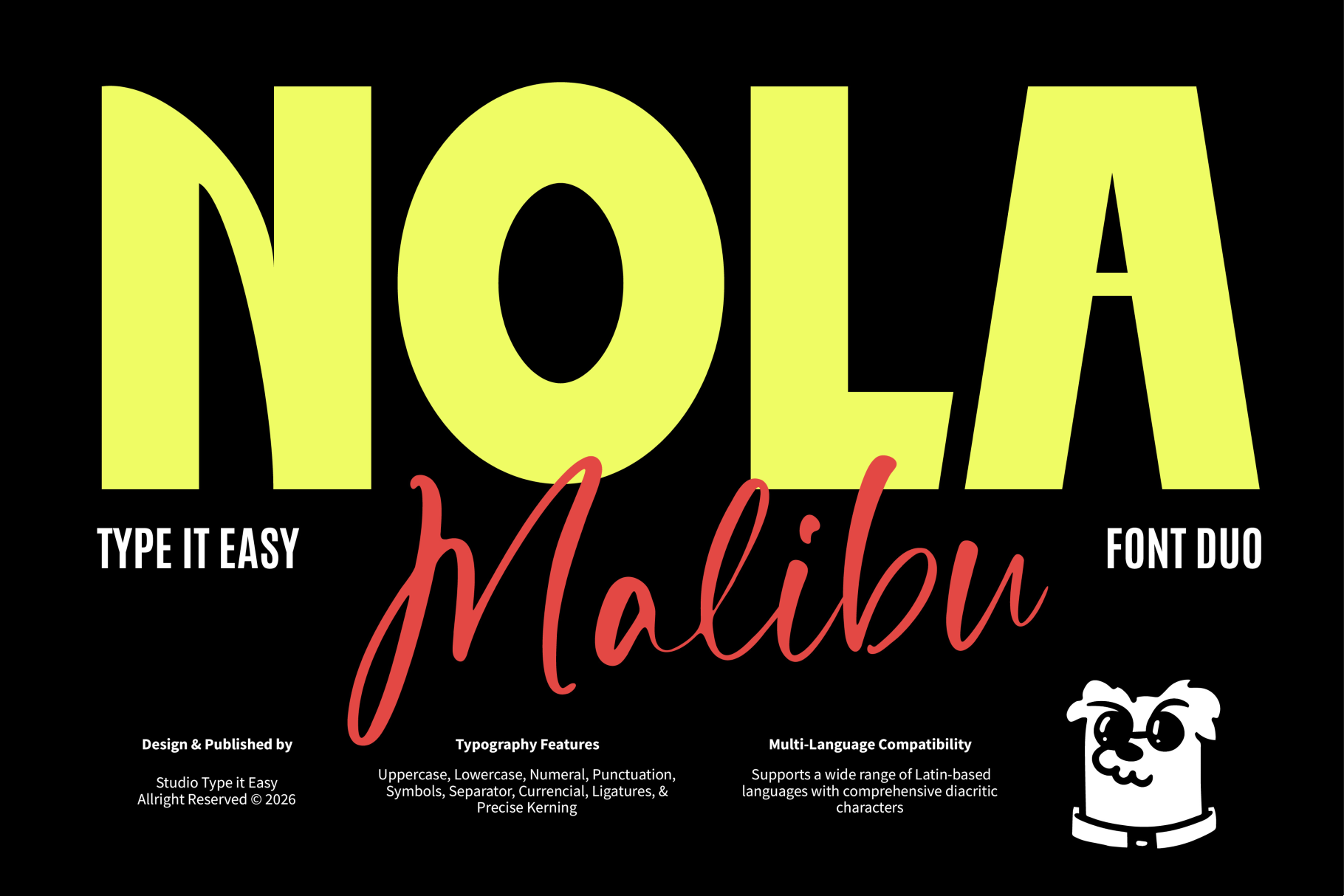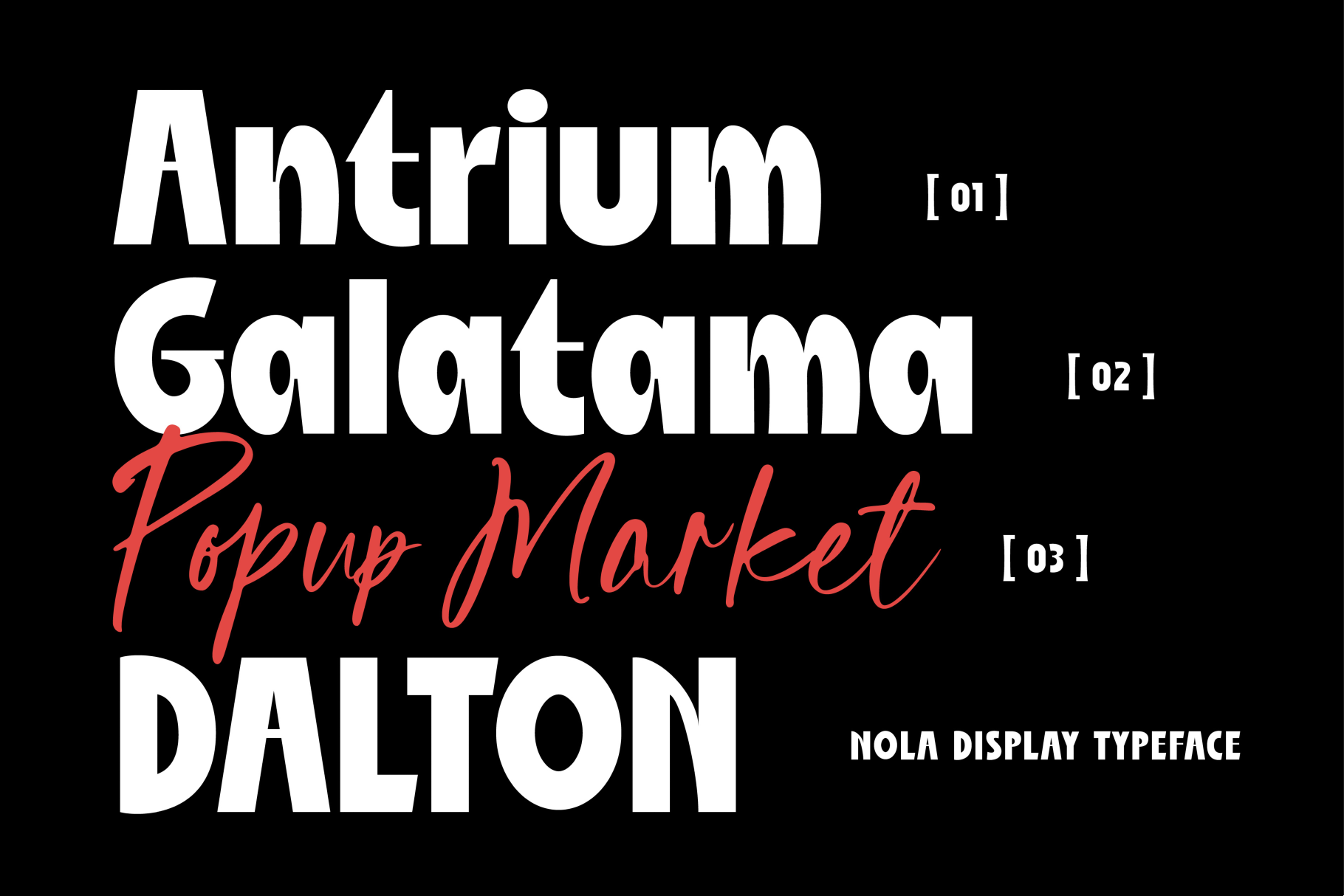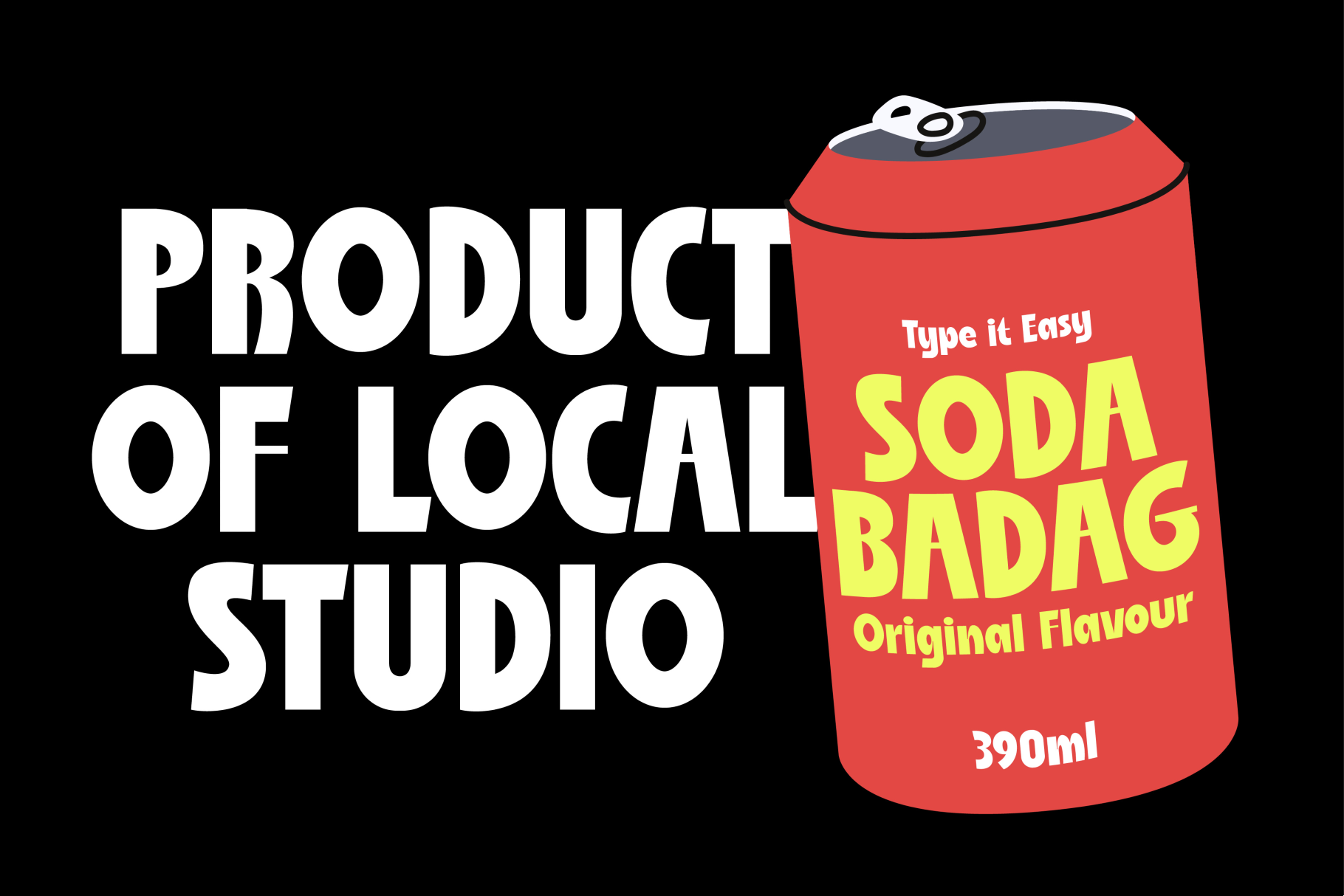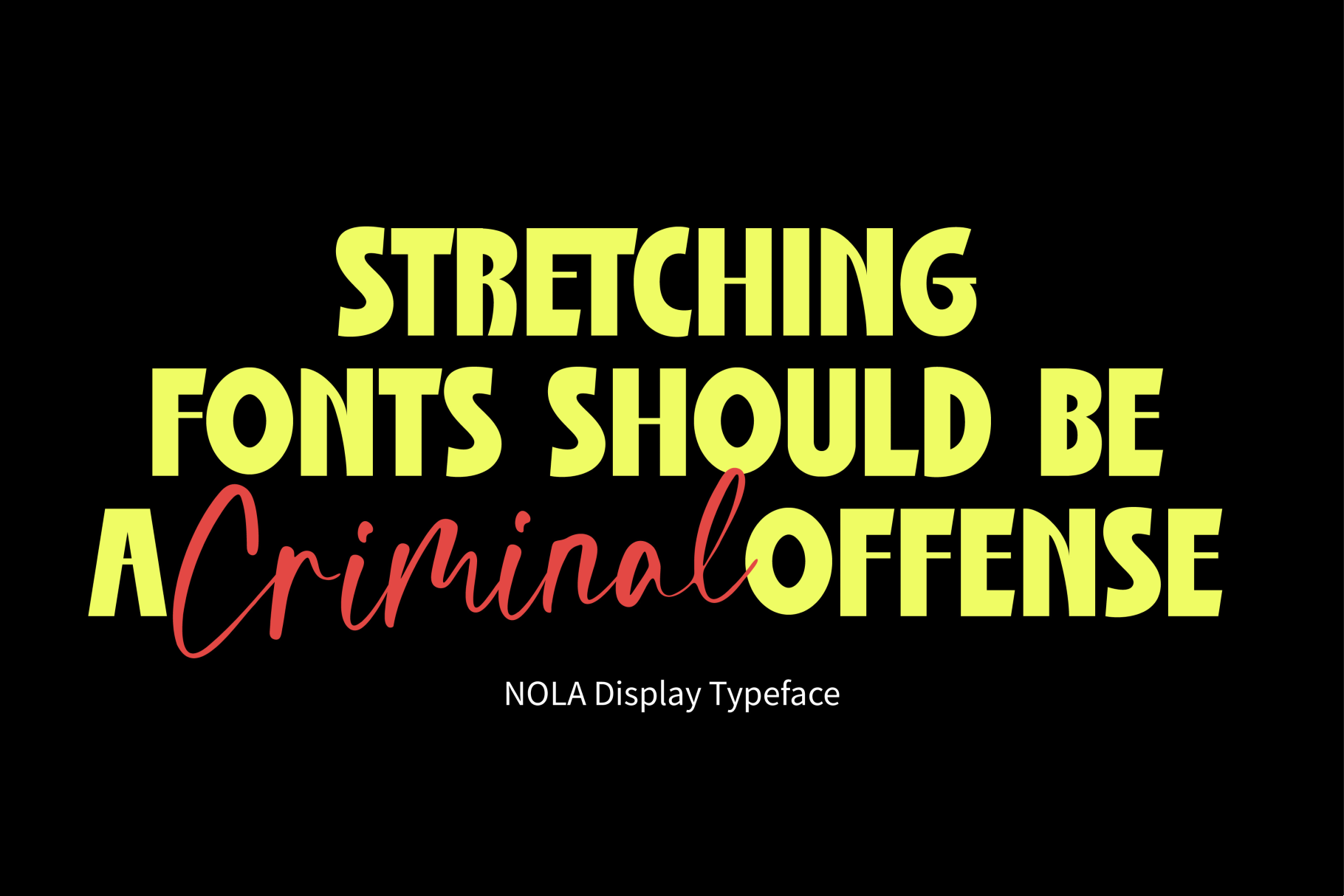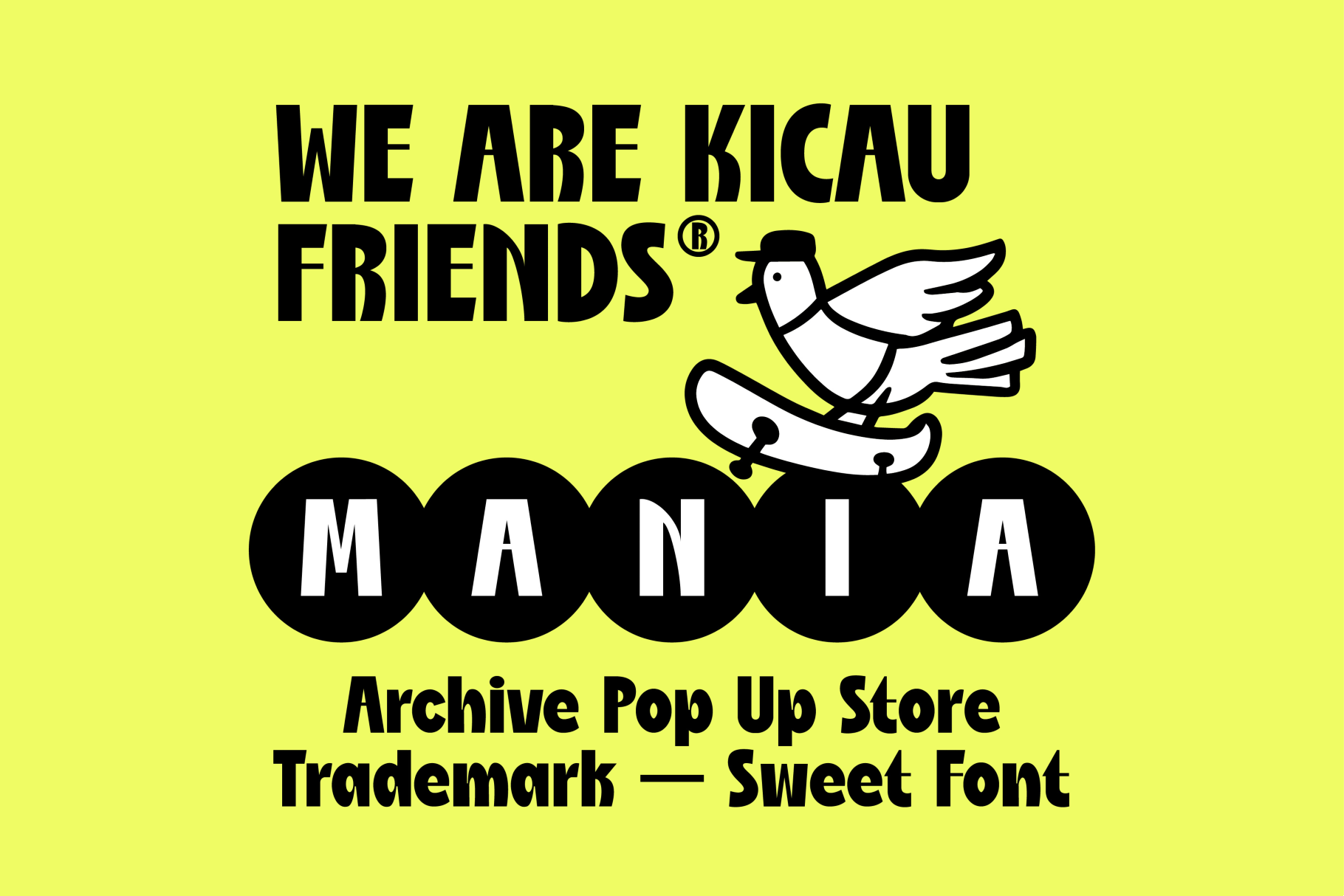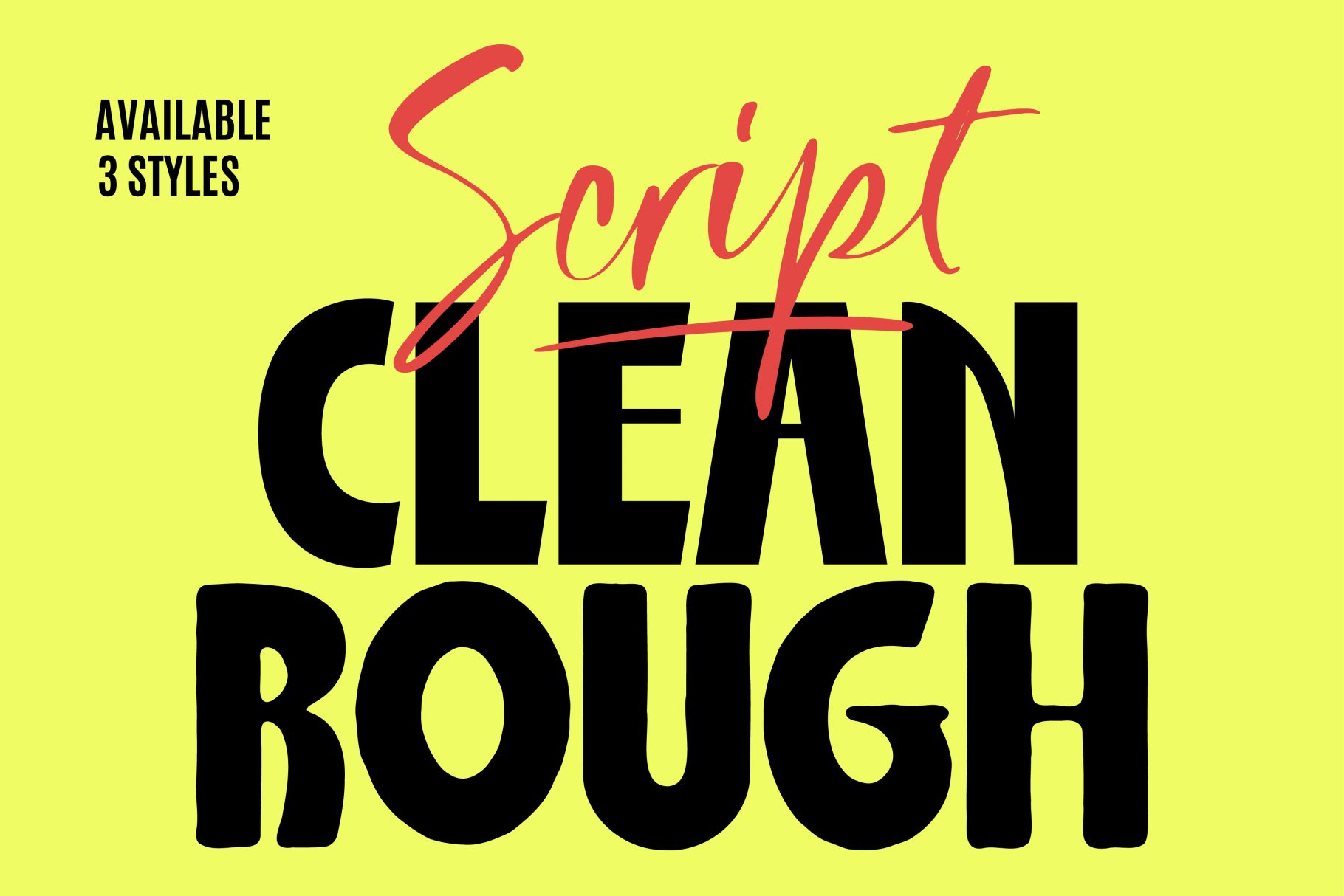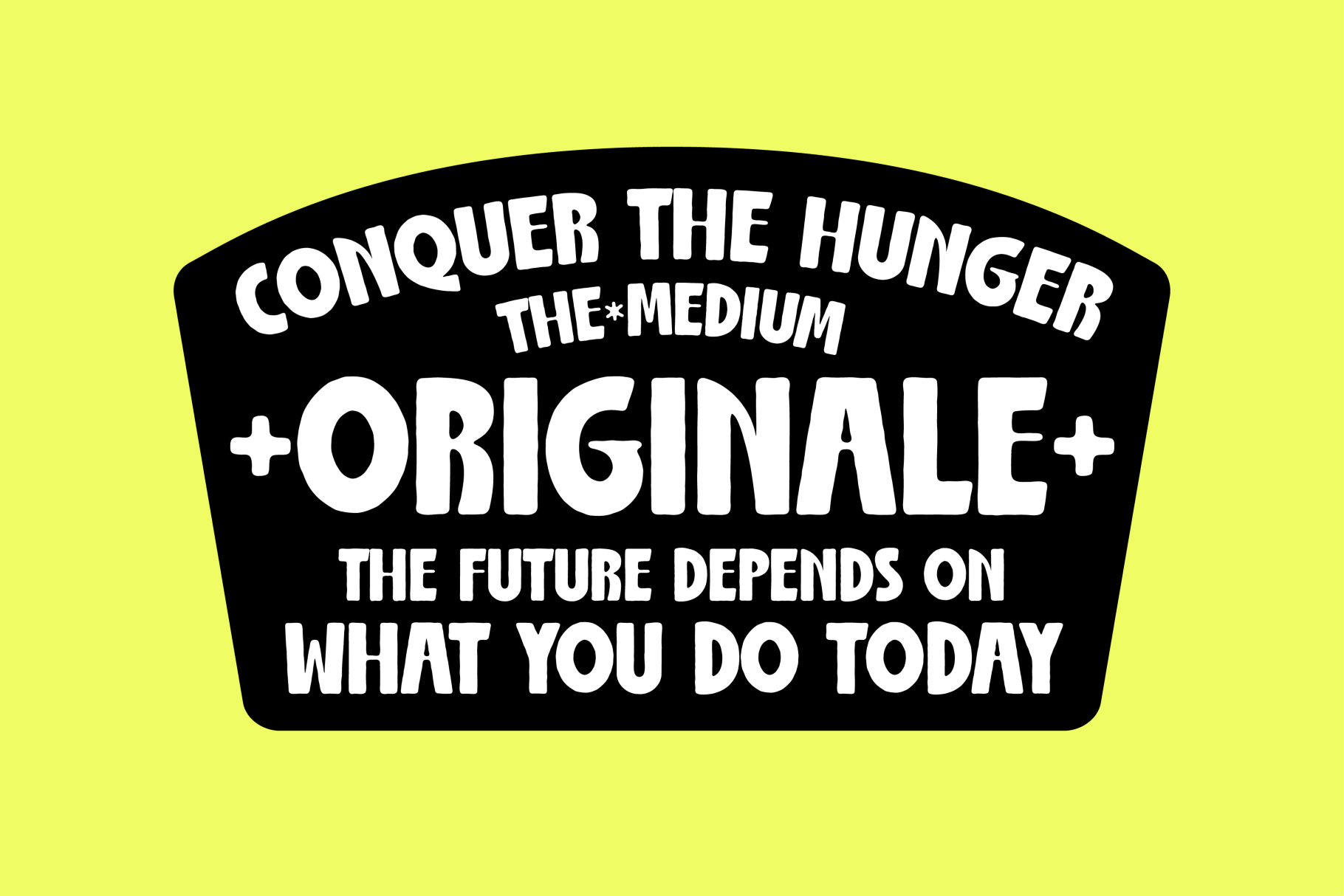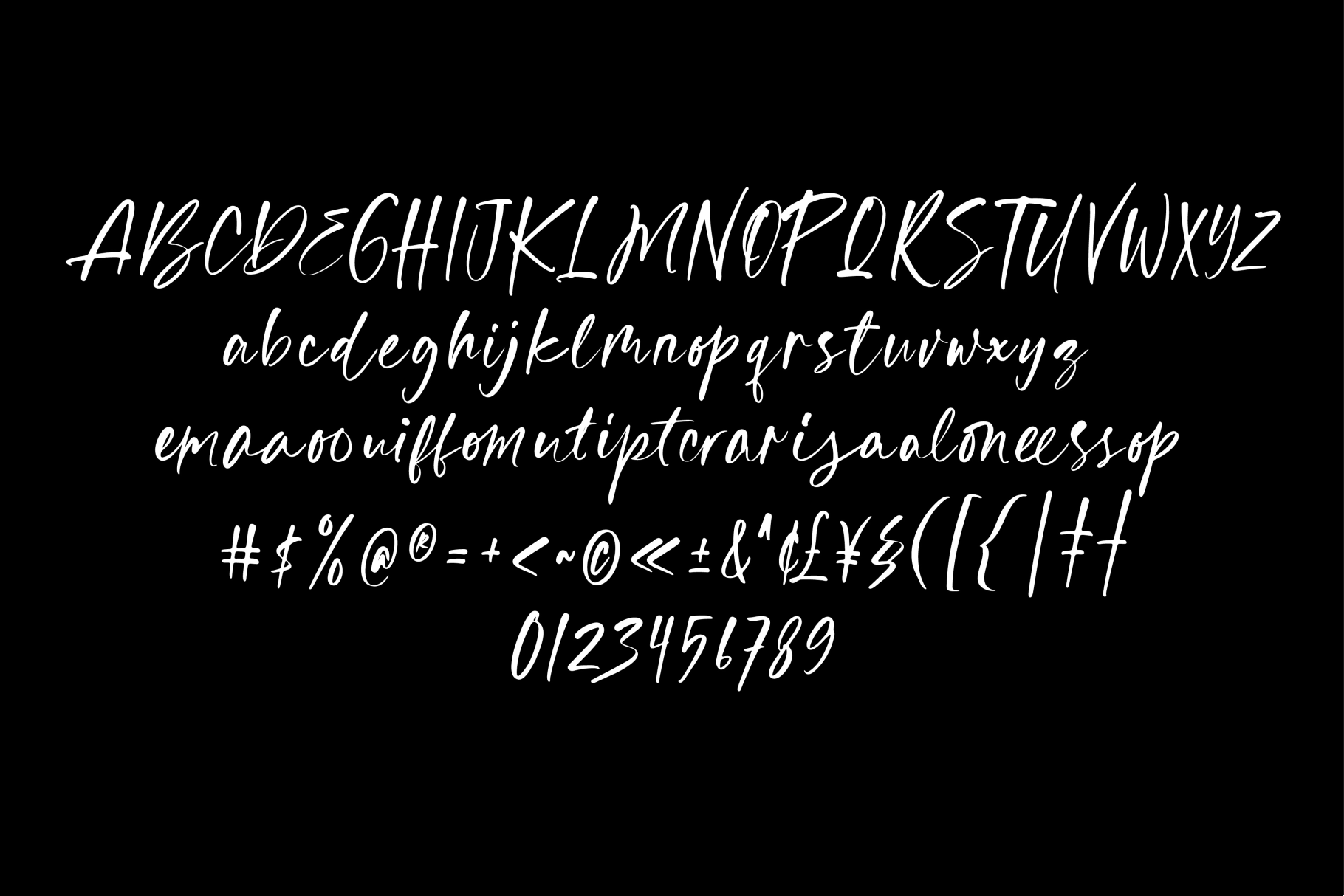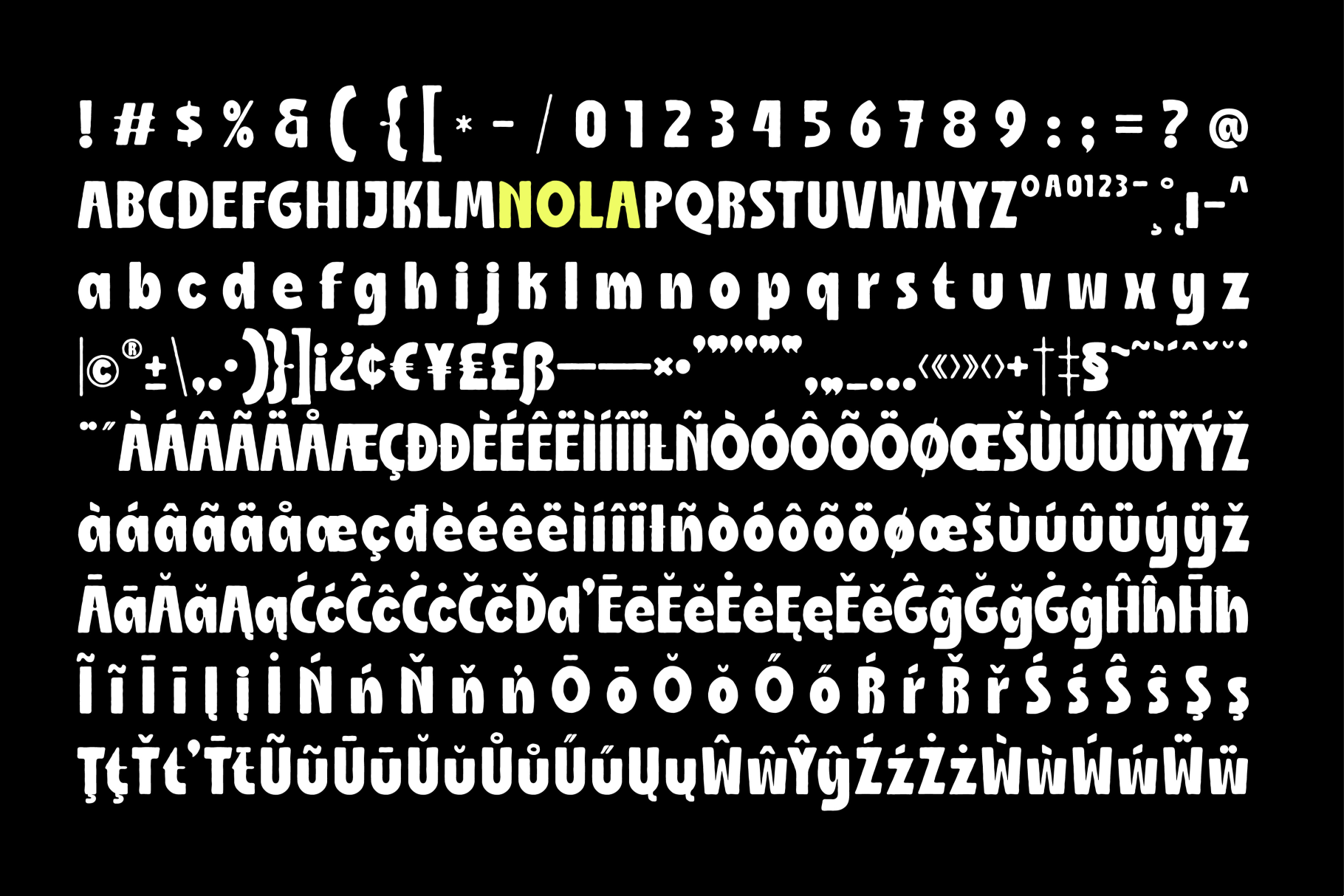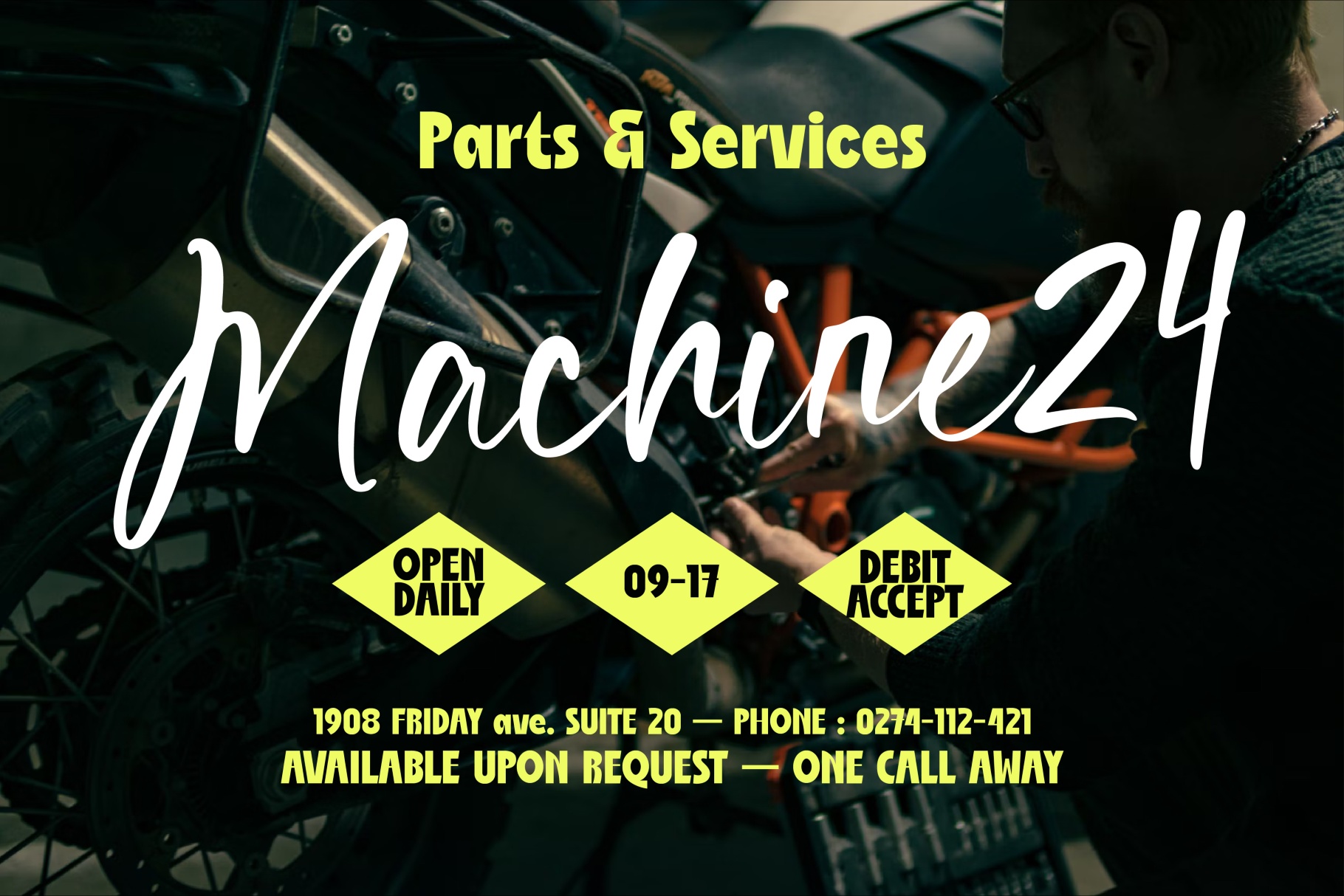
ST Nola Malibu - Script And Display Font Duo
ST Malibu
ST Nola
ST Nola-Rough
This display and script duo pairs a heavy condensed sans with a loose handwritten companion for high-contrast typography that hits fast. The sans is chunky, playful, and tightly spaced, while the script adds quick marker-like strokes with a casual pop-poster attitude.
Nola Malibu works well for festival posters, streetwear graphics, food packaging, music covers, social media campaigns, merch prints, editorial headlines, sticker designs, sports promos, café branding, event flyers, product labels, and more. The two styles are easy to mix for layouts that need loud hierarchy, friendly energy, and a little typographic mischief.
- Styles Included: Display, Script
- Ligatures
- Clean kerning